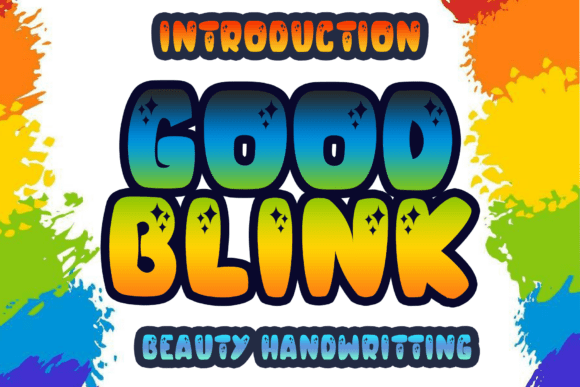
Introducing Good Blink Font: The Ultimate Display Font for Joyful Designs
Are you tired of using the same old fonts for your designs? Look no further! Good Blink Font is here to add a splash of fun and color to your creations. This bold, bubbly display font is perfect for kids’ designs, party invites, toy branding, and anything that needs a joyful spirit.
What Makes Good Blink Font Special?
Good Blink Font boasts a shiny gradient look and sparkly charm that sets it apart from other fonts. Its rounded, fun lettering is sure to capture the attention of your audience and leave a lasting impression. Whether you’re designing for kids or adults, this font is guaranteed to bring a smile to their faces.
Perfect for Kids’ Designs and Party Invites
Kids’ designs and party invites require a font that’s playful, fun, and engaging. Good Blink Font fits the bill perfectly. Its colorful and joyful spirit makes it ideal for:
- Kids’ party invitations
- Children’s book titles and covers
- Kids’ clothing and accessory branding
- Playful posters and flyers
Great for Toy Branding and Packaging
If you’re a toy brand looking for a font that will make your products stand out, Good Blink Font is the perfect choice. Its fun and bubbly personality will appeal to kids and parents alike, making it ideal for:
- Toy packaging and labeling
- Branding and logo design
- Marketing materials and advertisements
Adding a Joyful Spirit to Your Designs
Good Blink Font is more than just a font – it’s a design element that can add a joyful spirit to your creations. Its shiny gradient look and sparkly charm make it perfect for:
- Print-on-demand products and merchandise
Why Choose Good Blink Font?
With so many fonts available, why choose Good Blink Font? Here are just a few reasons:
- Unique and eye-catching design: Good Blink Font is unlike any other font you’ll find. Its shiny gradient look and sparkly charm make it a standout.
- Versatile and adaptable: This font can be used for a wide range of design projects, from kids’ designs to toy branding and more.
If you’re looking for a font that will add a splash of fun and color to your designs, look no further than Good Blink Font. With its bold, bubbly display and shiny gradient look, this font is perfect for kids’ designs, party invites, toy branding, and anything that needs a joyful spirit. So why wait? Download Good Blink Font today and start creating joyful designs that will leave a lasting impression!
Get Ready to Blink with Joy!